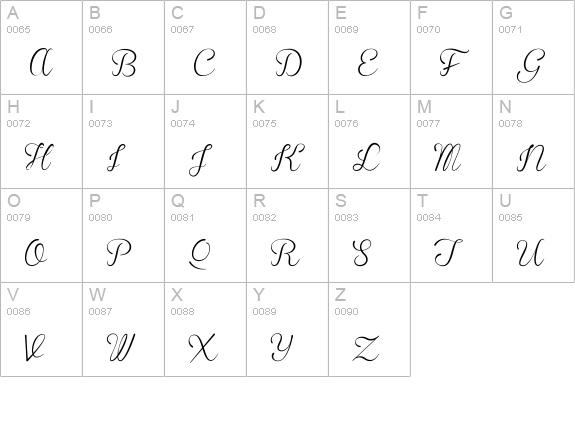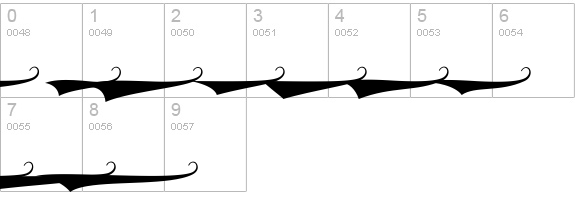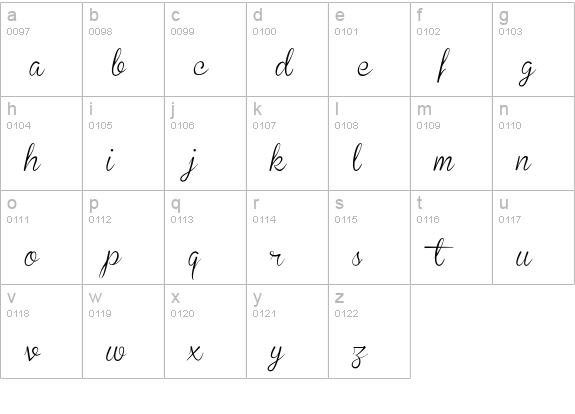
Brannboll S PERSONAL USE ONLY Font Details
Brannboll S PERSONAL USE ONLY font is the epitome of elegance and sophistication. With its clean lines and stylish curves, this font exudes a sense of timeless beauty that is sure to captivate any audience. Whether you are designing a logo, creating a wedding invitation, or simply adding a touch of class to your personal projects, Brannboll S PERSONAL USE ONLY is the perfect choice. What makes Brannboll S PERSONAL USE ONLY font even more appealing is that it is completely free for personal use. That's right, you can download this stunning font at absolutely no cost from FontsMarket.com. This means that you can use it to bring your creative visions to life without worrying about any additional expenses. The versatility of Brannboll S PERSONAL USE ONLY font is truly remarkable. It can effortlessly adapt to any design concept, whether you are going for a modern and sleek look or a more vintage-inspired aesthetic. Its bold and striking appearance will make a statement and leave a lasting impression on anyone who encounters it. The attention to detail in Brannboll S PERSONAL USE ONLY font is unparalleled. Each letter has been meticulously crafted to perfection, ensuring that every character is visually pleasing and harmoniously blends with the rest of the typography. The result is a cohesive and visually stunning design that will elevate your projects to new heights. So why wait? Start exploring the endless possibilities that Brannboll S PERSONAL USE ONLY font has to offer. Download it for free at FontsMarket.com and let your creativity run wild. Whether you are a professional designer or simply someone who appreciates the beauty of typography, this font is a must-have in your collection. Embrace the elegance and sophistication that Brannboll S PERSONAL USE ONLY font brings to the table and watch your designs come to life.